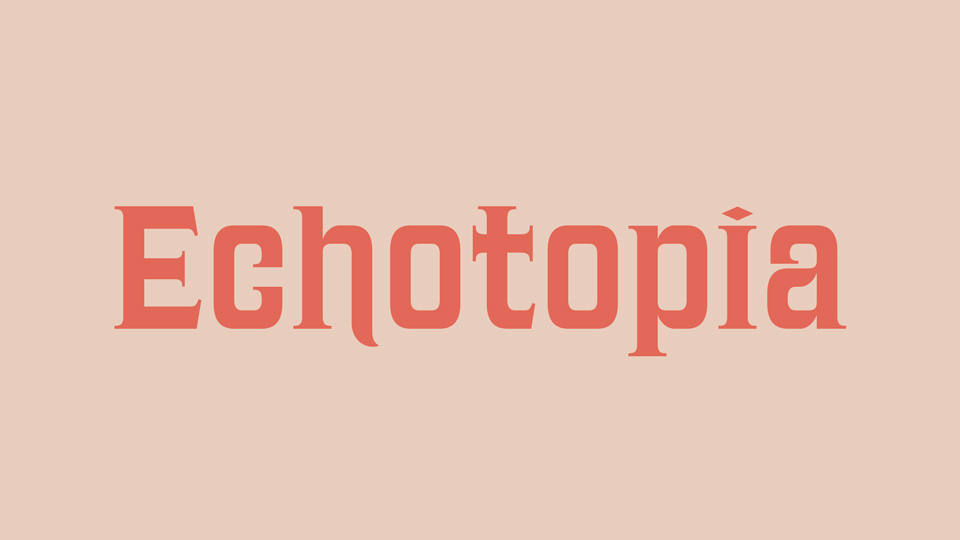
Feb 9, 2025SerifEchotopia Font Echotopia is a vintage serif typeface based on the masthead of an issue of The Echo published sometime between 1890 and 1900 according to the Library of Congress. Font DetailsDesigned by: Erik KirtleyWebsiteLicense: Free for commercial use, OFL Download Echotopia FontFile size: 17.79 KBCreated: February 16, 2025Updated: February 16, 2025 Download Explore related fonts Riverine Progress Font Retro Dingo Font Emilys Candy Font Brindley Houston Font Evermont Font Sharp History Font Musaic Font Enda Danila Font # Decorative# Vintage